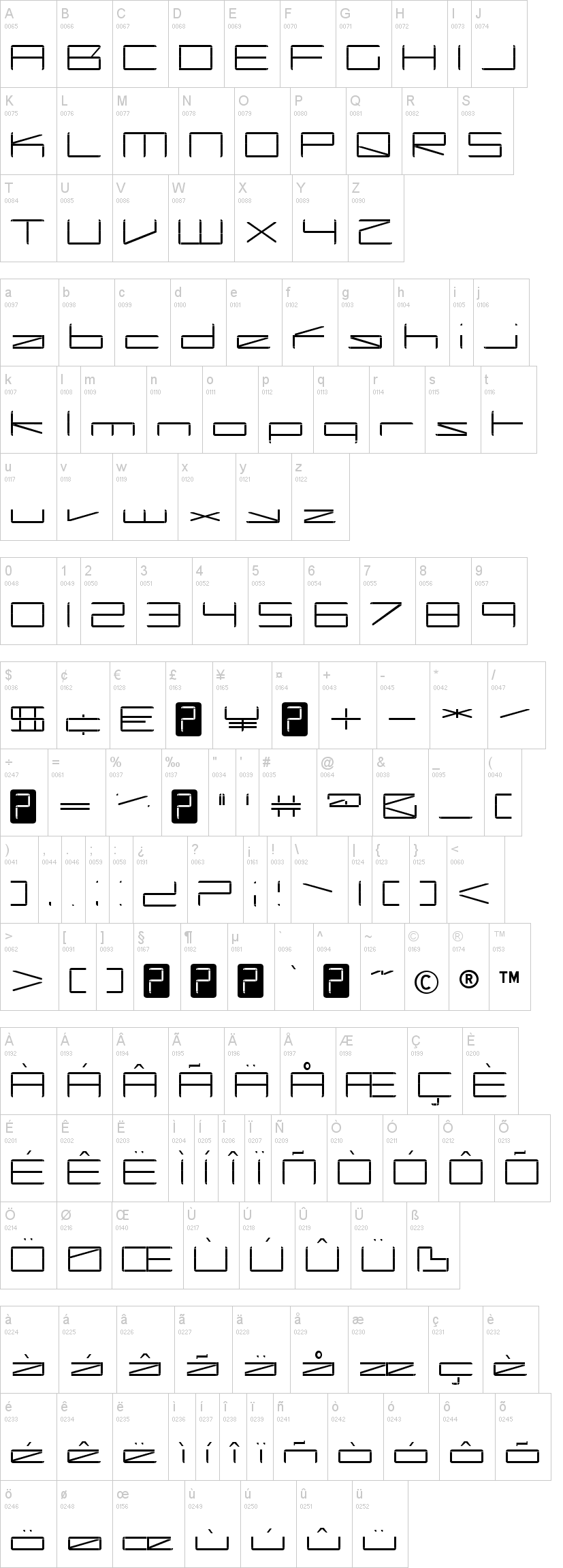
Capacitor is a wide, segmented LCD/LED display font. Its a wider matrix that a typical segmented font is best used used at smaller sized to to create textural headlines which contrast against something narrow yet readable. Don't forget to read the files inside the zip for details. Updated in 2012.